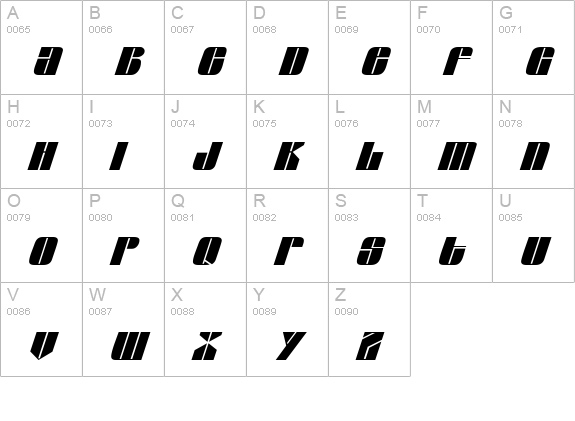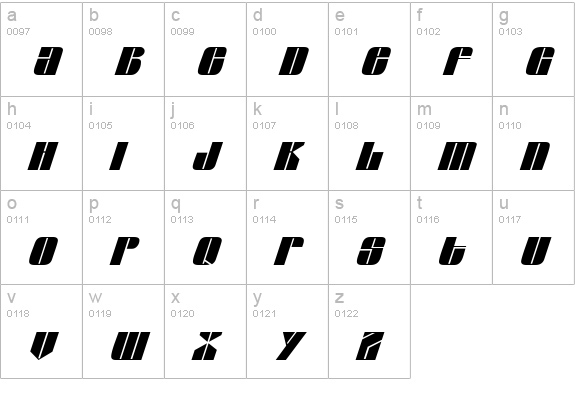
G761-Deco-Italic Font Details
G761-Deco-Italic is a distinctive, italic variant in the G761 typeface family \xE2\x80\x94 well suited to design and typography projects.
Introducing the elegant and sophisticated G761-Deco-Italic font! This unique typeface exudes a sense of timeless charm and artistic flair, making it the perfect choice for adding a touch of class to any design project. The sleek and stylish italic design of G761-Deco-Italic is sure to captivate and impress your audience. What makes G761-Deco-Italic even more appealing is that it is available for free download at FontsMarket.com. This means that you can easily access this stunning font to elevate your designs without any cost. Whether you're working on branding materials, invitations, posters, or any other creative project, G761-Deco-Italic is a versatile and eye-catching font that will make your work stand out. Don't miss out on the opportunity to enhance your designs with the exquisite G761-Deco-Italic font. Download it for free today at FontsMarket.com and let your creativity shine!